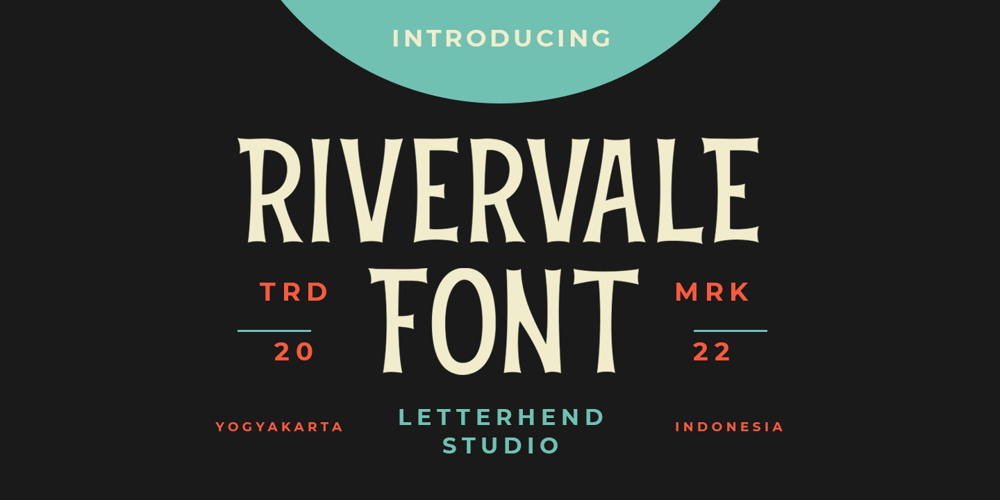
Rivervale
Rivervale font
Rivervale Font Family was designed by Hendry Juanda and published by Letterhend. Rivervale contains 1 styles and family package options. Rivervale font a typeface which is inspired by vintage lettering sign and art. Very suitable for for headline, logotype, apparel, invitation, branding, packaging, advertising etc with old school / vintage as well as modern theme. It comes in uppercase, lowercase, punctuations, symbols & numerals, stylistic set alternate, ligatures, etc also support multilingual and already PUA encoded.Features : uppercase and lowercase numbers and punctuation multilingual alternates and ligatures PUA encoded We highly recommend using a program that supports OpenType features and Glyphs panels like many of Adobe apps and Corel Draw, so you can see and access all Glyph variations. How to access opentype feature : letterhend.com/tutorials/using-opentype-feature-in-any-software/